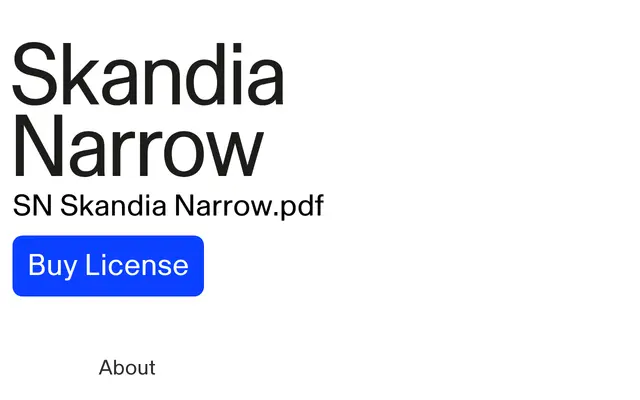
Store Norske Skandia Narrow
A narrow companion to Skandia, itself rooted in a rediscovered Norwegian railway grotesque, designed to hold the character of the original in tighter settings.
Designed by Arve Båtevik, Skandia Narrow compresses the proportions of Skandia while preserving its balanced contrast, measured tone and geometric structure. The result is a denser text image with a firmer vertical rhythm, suited to editorial systems, signage and interfaces where space is constrained but the typeface still needs to feel open and stable. It forms part of a broader family that includes the standard Skandia, a condensed cut and a mono variant.
Rooted in a rediscovered Scandinavian neo-grotesque originally designed for the Norwegian National Railway, Skandia Narrow retains the geometric structure and measured contrast of its wider counterpart in a condensed width.